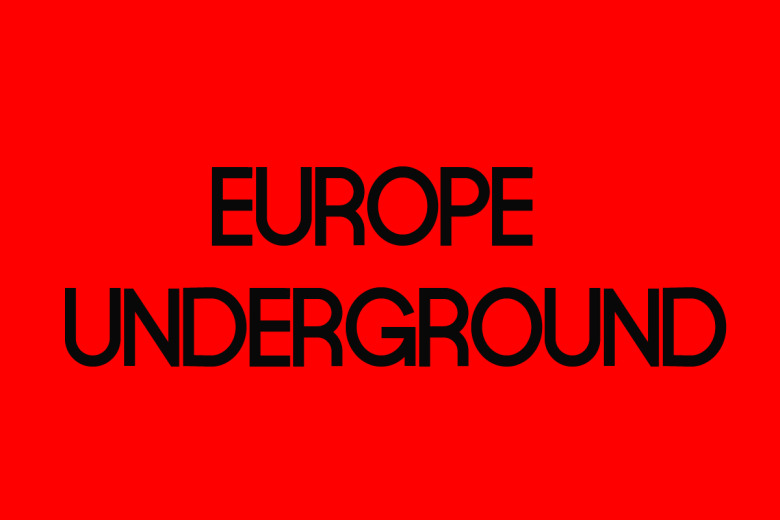
Europe Underground Font
Europe Underground is a high quality Sans Serif font that is designed by Mans Greback and is available for free download and personal use. The free version provides all uppercase and lowercase letters and a few special characters too.